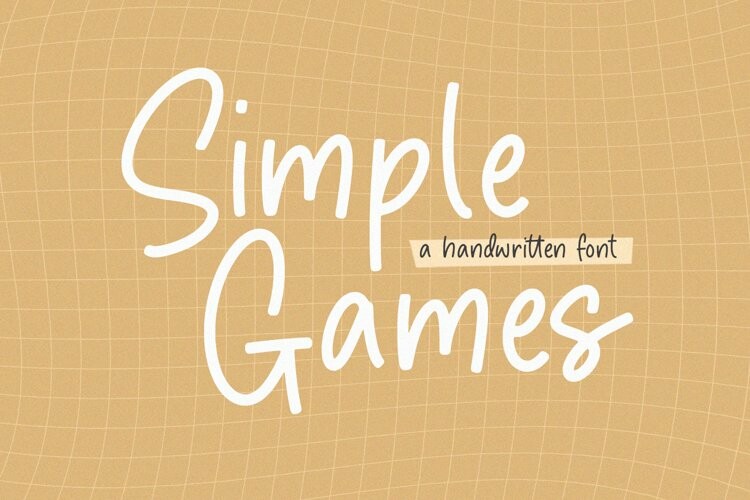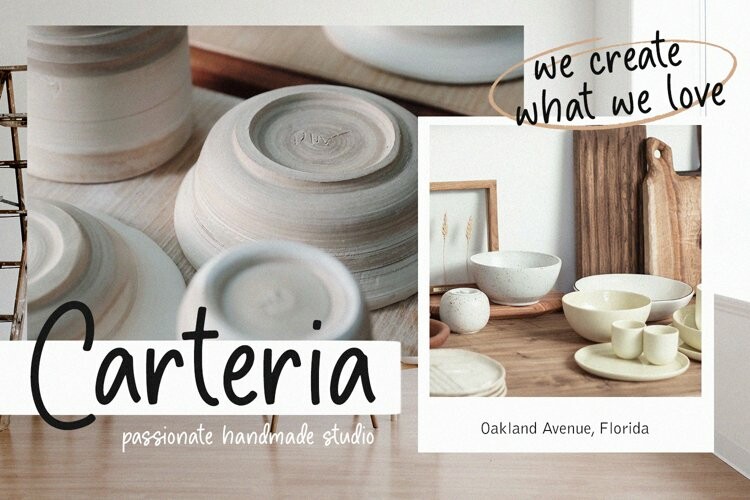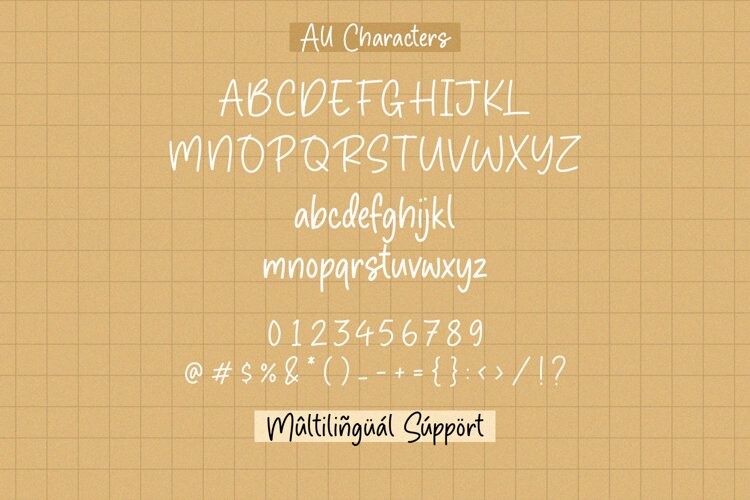
Simple Games Font
Simple Games FontSimple Games A Handwritten Script Font , which was created with great care and specially created for you
Simple Games is perfect for product packaging, branding project, megazine, social media, wedding, or just used to express words above the background.